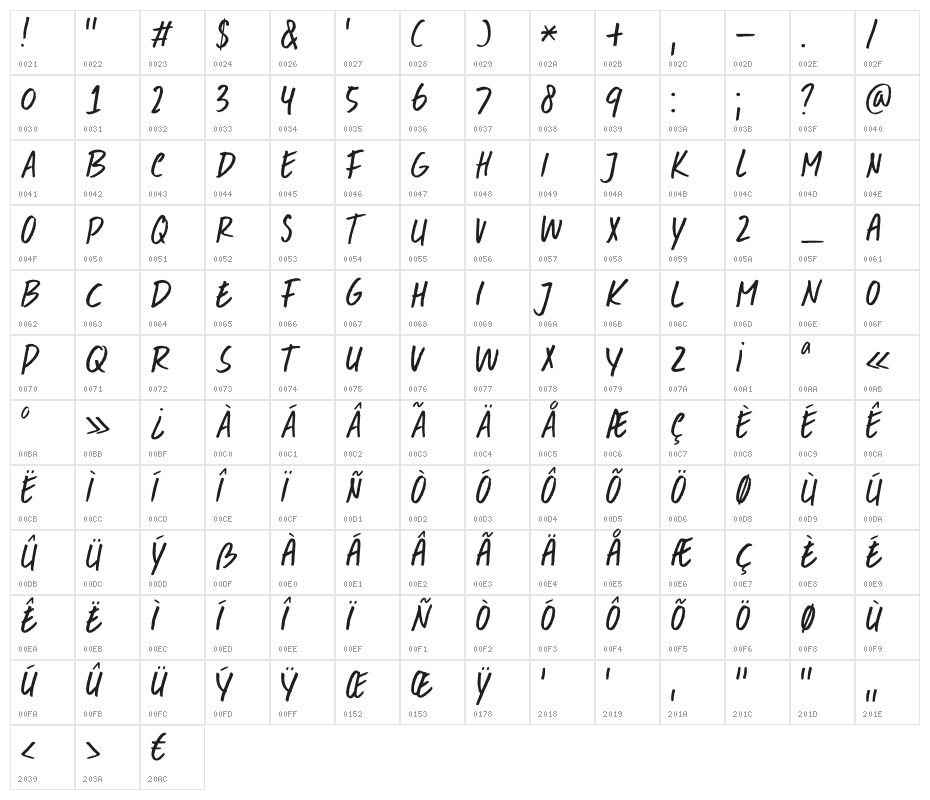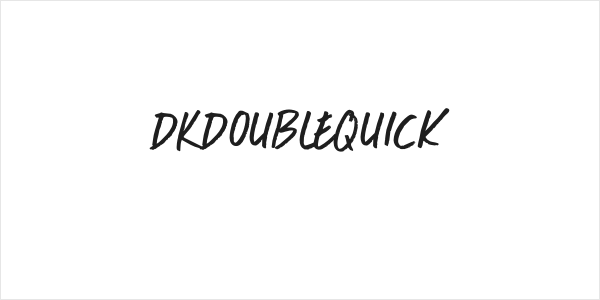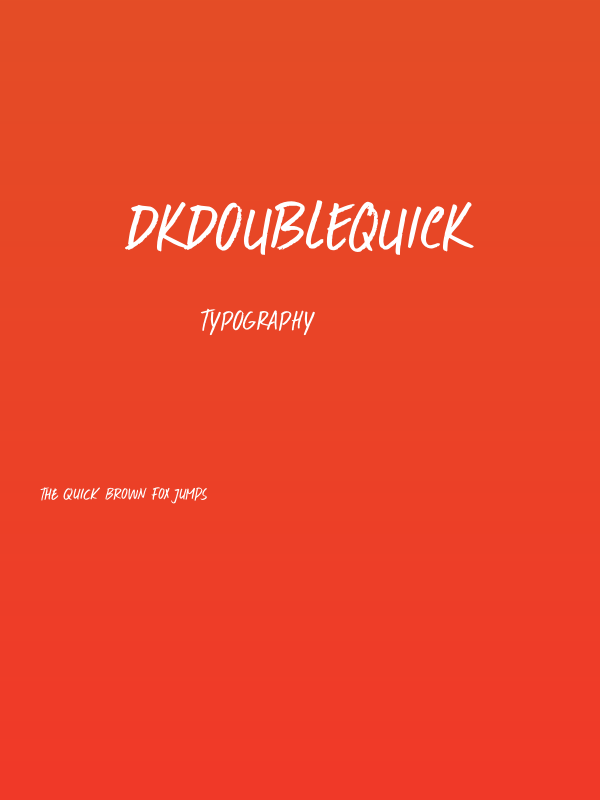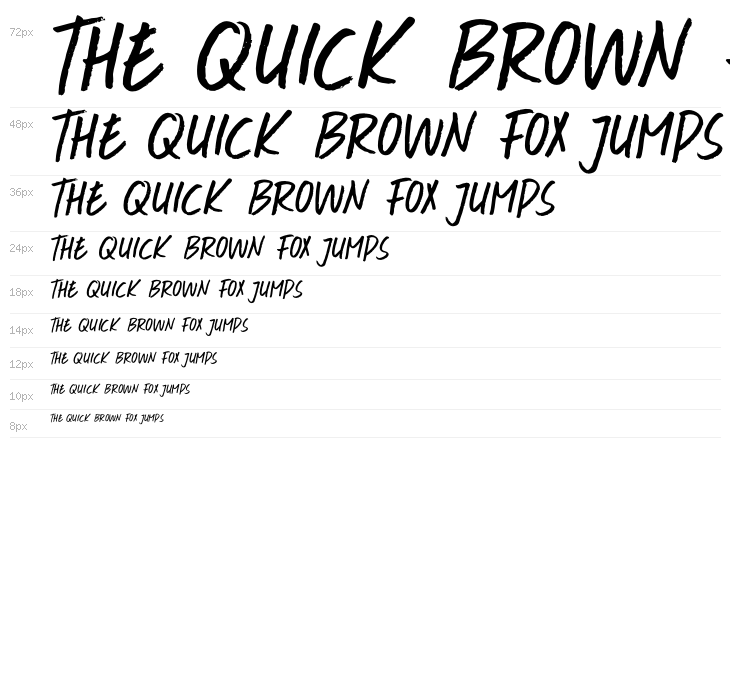
DKDoubleQuick Font
DKDoubleQuick Description
This font exudes a dynamic and energetic vibe, characterized by its bold, handwritten style. The letters are crafted with a brush-like texture, giving them a raw and expressive appearance. Each character is slightly slanted, adding a sense of movement and fluidity. The uppercase and lowercase letters maintain a consistent style, with a playful yet assertive presence. The numbers and special characters follow the same aesthetic, ensuring uniformity across all glyphs. This font is perfect for projects that require a personal touch, such as invitations, posters, or branding materials that aim to convey creativity and individuality.
| Proposed Projects | Ideal for creative projects like invitations, posters, and branding materials. |